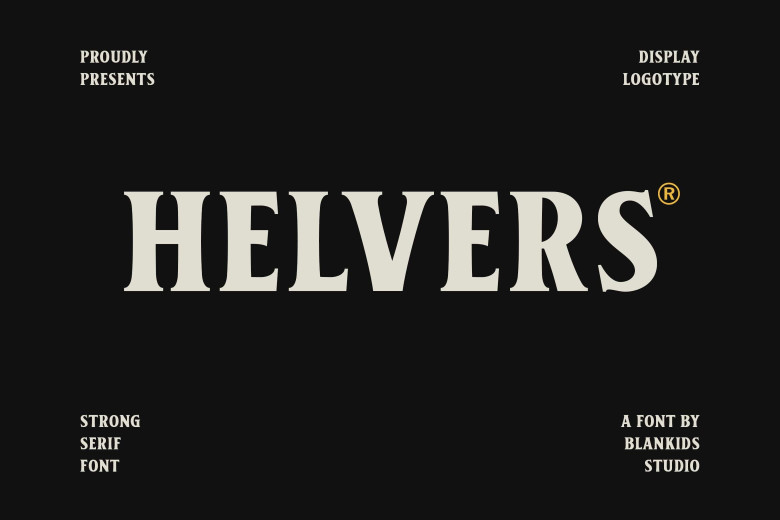
Helvers Font
Helvers is a contemporary and stylish serif font that has a sleek, modern appearance. With this font’s sophisticated and clean style, Helvers will help you to craft designs that capture viewers’ attention.
Helvers Serif Font